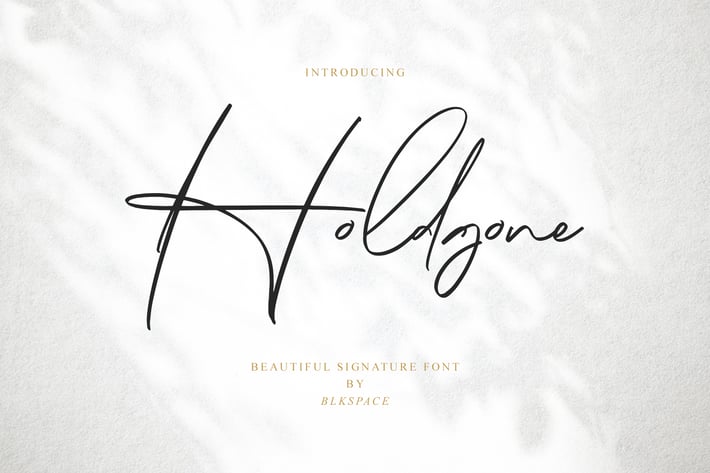
Holdgone Font
Holdgone is handwritten from a pen, the curves of each character are very original, there are no changes from handwriting to fonts.
Holdgone has standard characters in it, including uppercase, lowercase, numbers, punctuation and multilingual. And don't forget, Holdgone also has another additional character called the OpenType Feature. Holdgone will make your design work more interesting, because Holdgone is made for something interesting.